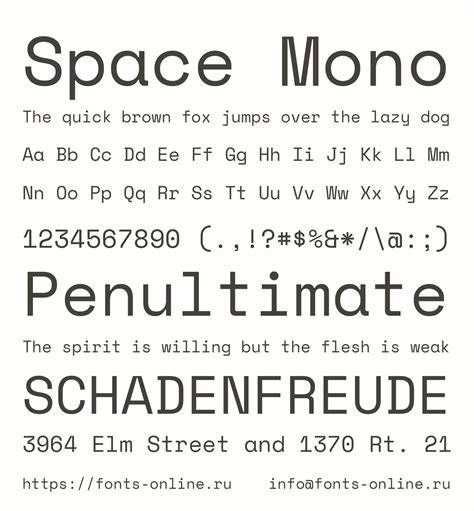
Mono Fonts - A Brief Overview Of These Unique Typefaces
In the world of typography, fonts come in many different shapes and sizes. There are serif, sans serif, script, and decorative fonts, all of which can have an impact on the look and feel of a piece of text. But, there is one type of font that stands out from the rest – mono fonts. Mono fonts, also known as monospaced fonts, are fonts that have a consistent width between characters. This makes them unique and makes them stand out from the rest.
Mono fonts have been around for centuries, with the earliest being used in printing presses in the 18th century. Since then, they have been used in typewriters, computers, and more. Over the years, they have become popular in the digital world, especially for coding. They are also used in text-based games, such as those that are written in BASIC language.
The Benefits of Using Mono Fonts
Mono fonts have a number of benefits that make them a great choice for your design project. For one, they are easy to read, as the characters are all the same width. This makes it easier to read long strings of text or code without having to worry about the letters being too big or too small. In addition, mono fonts are also great for making code look neat and organized.
Mono fonts are also incredibly versatile. They can be used in a variety of different situations, such as in logos, websites, magazines, and more. They are also great for creating a unique look and feel to a design. This is why they are often used in logos and brand identities.
Finding the Right Mono Fonts
If you are looking to use mono fonts in your designs, there are many options available. You can find free fonts online, as well as paid fonts. Free fonts are a great option if you are on a budget, as they are usually of good quality and can be used for a variety of projects. However, if you are looking for something more unique or specific, then you may want to look into purchasing a paid font.
When choosing a mono font, it is important to make sure that it is legible, as this will ensure that your design looks professional. You should also make sure that it is easy to read, as this will make it easier for people to understand what you are trying to convey. Finally, you should also consider the style of the font and make sure that it fits with the overall look and feel of your project.
Mono fonts are a great typeface to use in a variety of design projects. They are easy to read and can be used in a variety of situations, such as logos, websites, magazines, and more. They are also incredibly versatile and can be used to create a unique look and feel. With all of these benefits, it is easy to see why mono fonts are so popular in the digital world.